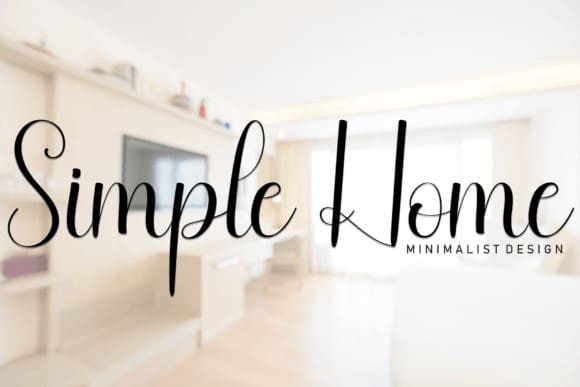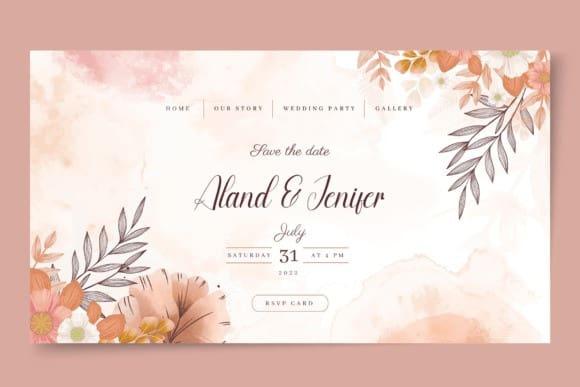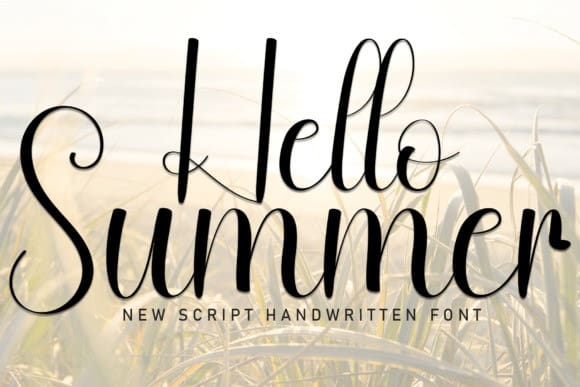
Hello Summer Font
Hello Summer Font, this is a sweet and friendly handwritten display font. Cute and fun, this font is ideal for writing wedding invitations, cards, or any other design that might need a fun touch!